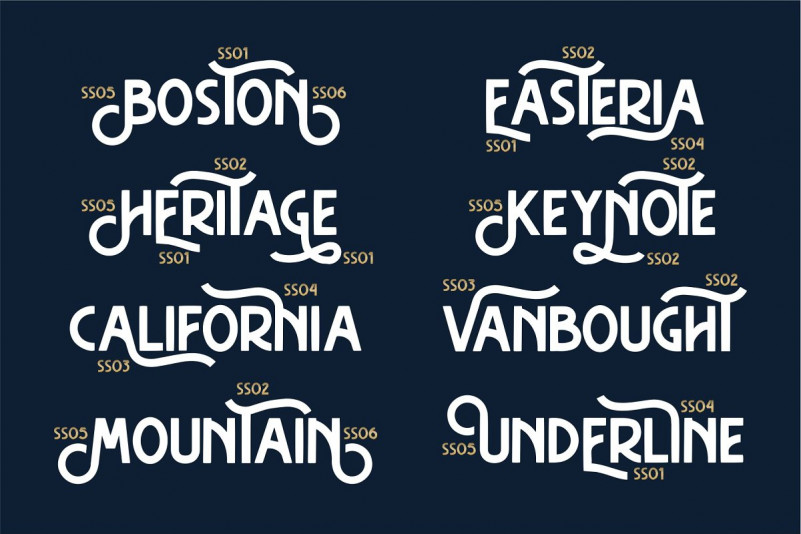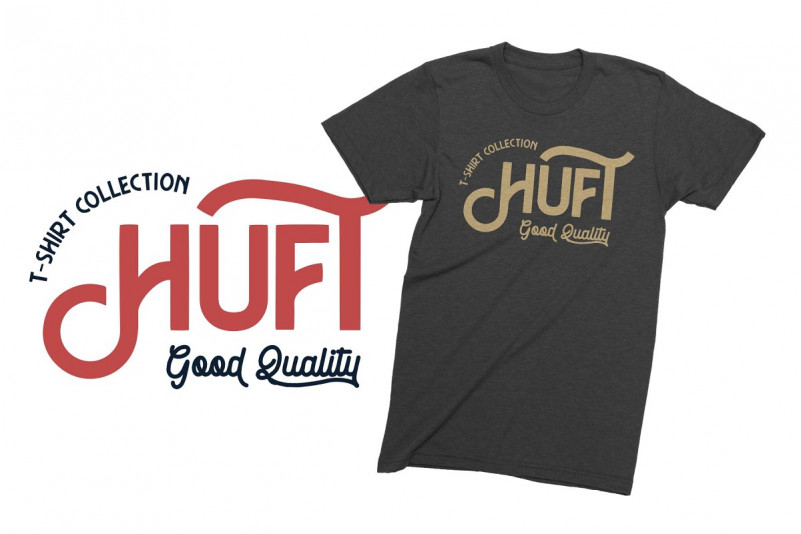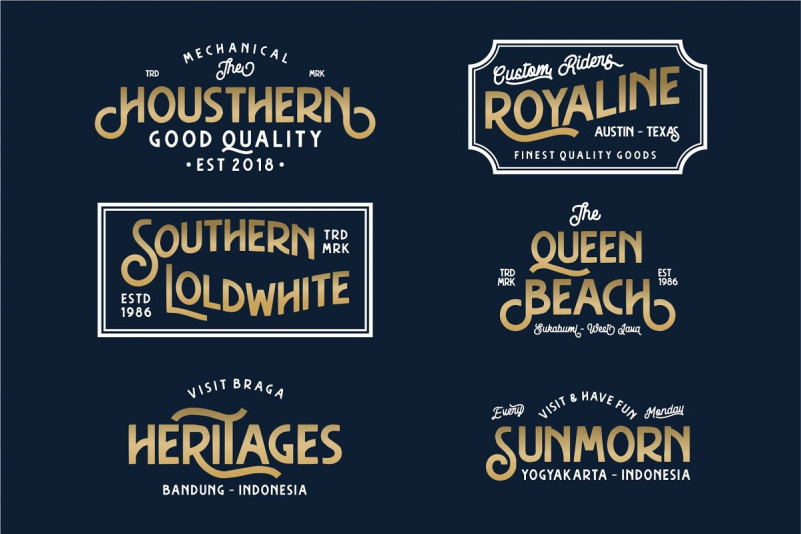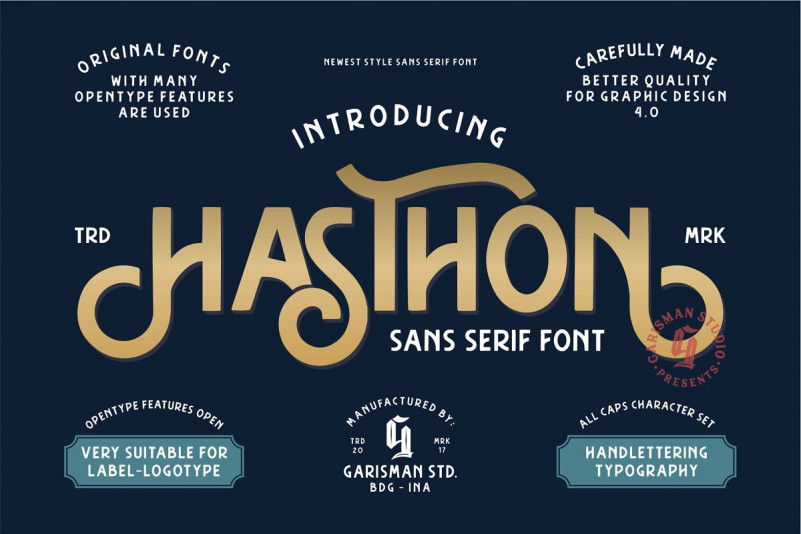
Hasthon Vintage Font
Hasthon Vintage Demo Font
A new vintage font typeface. This majestic typeface convey a feeling of refinement in traditional as well as contemporary designs. Perfect for creating unique titles and logos with a luxurious and stylish look. Introducing Hasthon Display Font. It’s designed and shared by Garisman Std. Hasthon Vintage Font – this font gives a feel of vintage, classic, old, handmade looked like. Already PUA Encoded and I think this font is perfect for people looking for vintage aesthetic or logo-type. Suitable for any graphic designs such as branding materials, t-shirt, print, business cards, logo, poster, t-shirt, photography, quotes .etc.